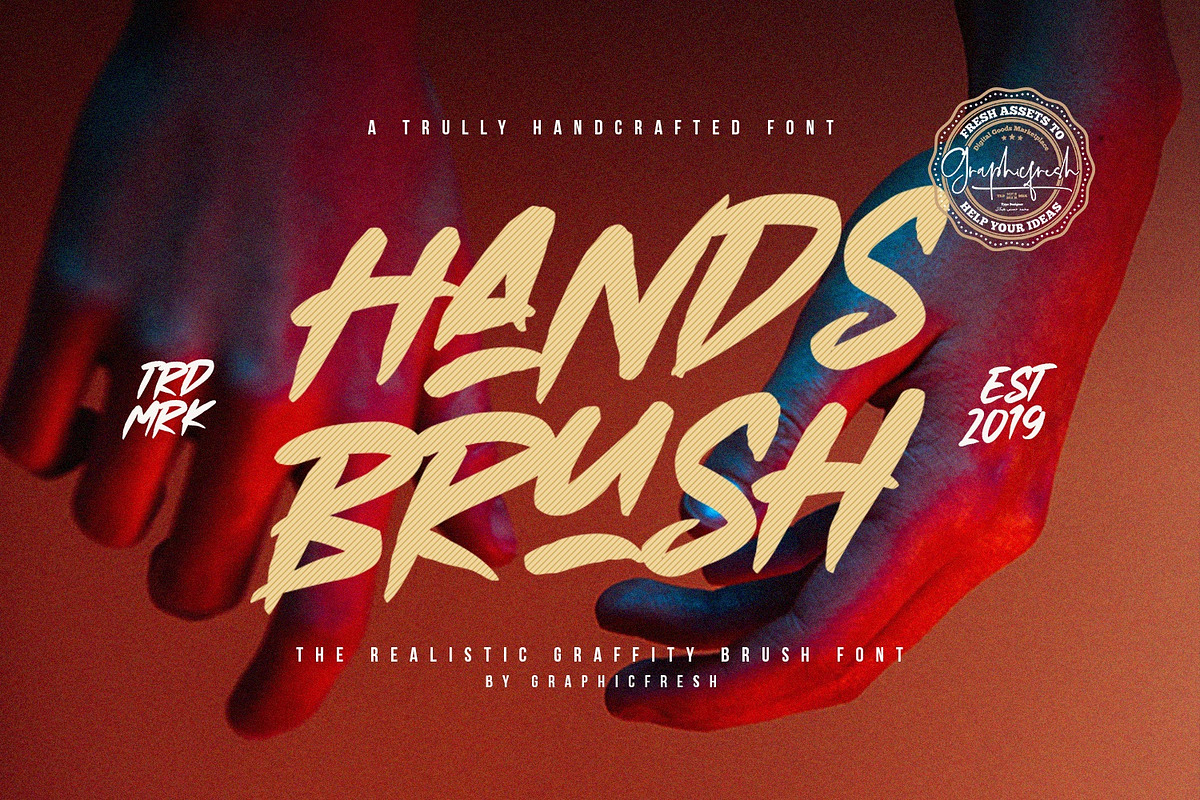
Hands Brush - Strong Urban Brush
Hands Brush - Strong Urban Brush Font
Hands Brush! A beautiful collection of hand-lettered modern calligraphy brush fonts. Hands Brush is guaranteed to deliver an unapologetically loud & fast-paced message; ideal for logos, apparel, quotes, product packaging, or anything which needs a typographic turbo-boost.
1. Hands Brush - Handbrushed font including upper & lowercase characters, numerals and more of symbols.
2. Multilingual support for various languages